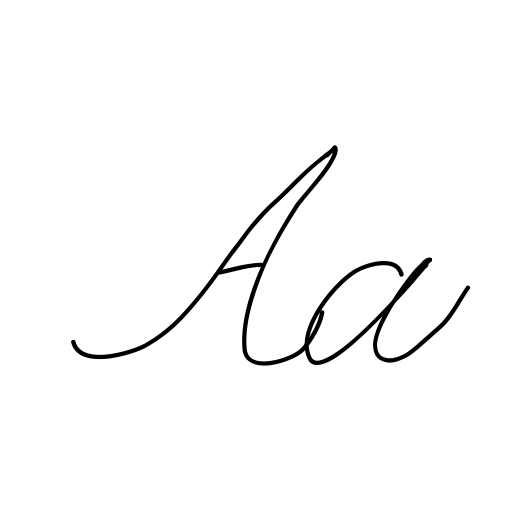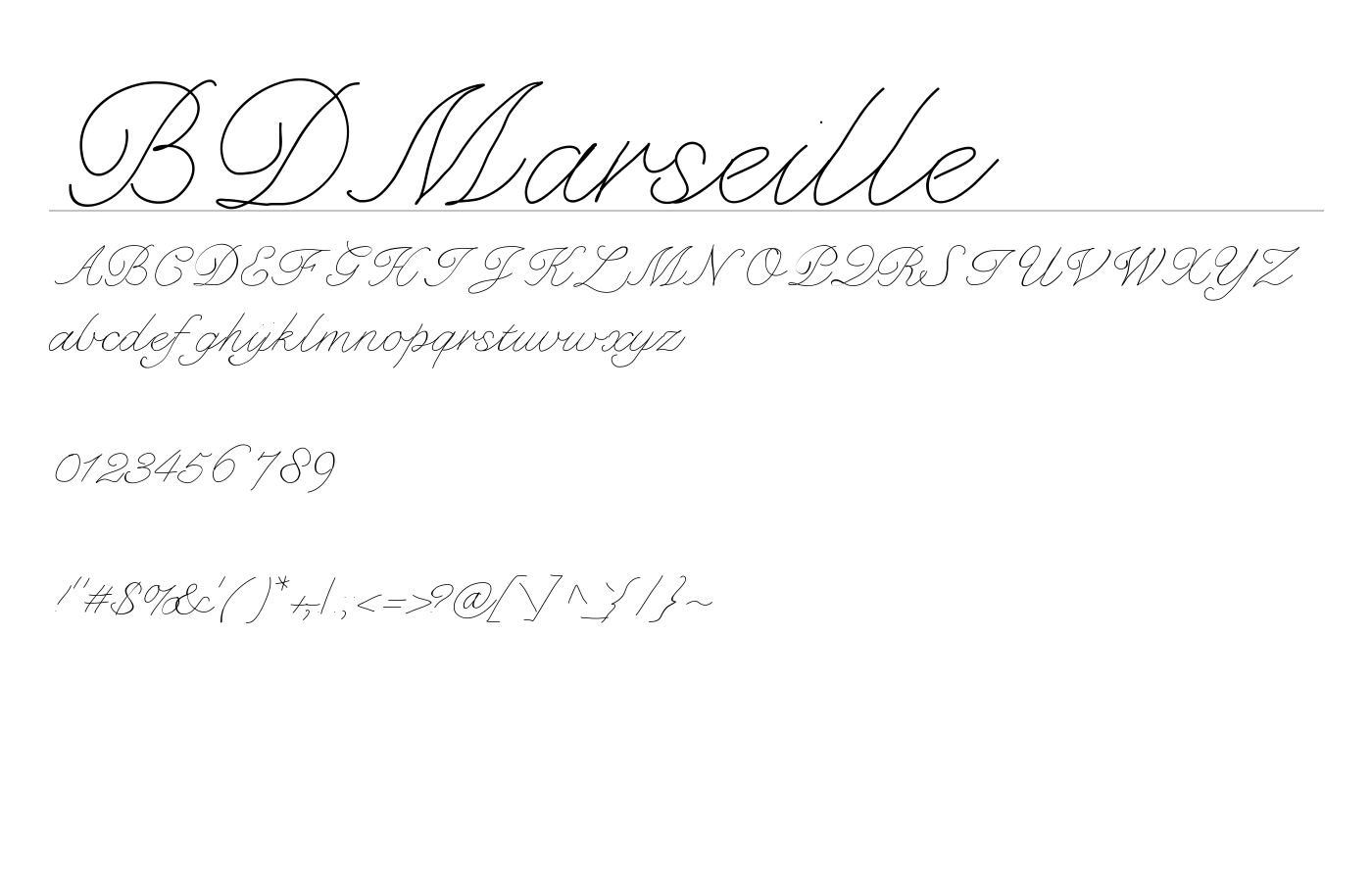
BDMarseille is a delicate, elegant script font characterized by thin, flowing strokes that mimic classic cursive handwriting. Its slender, airy letterforms with subtle flourishes evoke a sense of sophistication and grace, making it ideal for upscale branding, invitations, and stylish editorial designs. The font's refined, calligraphic style works beautifully when a touch of luxury and personal charm is desired.
BDMarseille Font
About BDMarseille Font